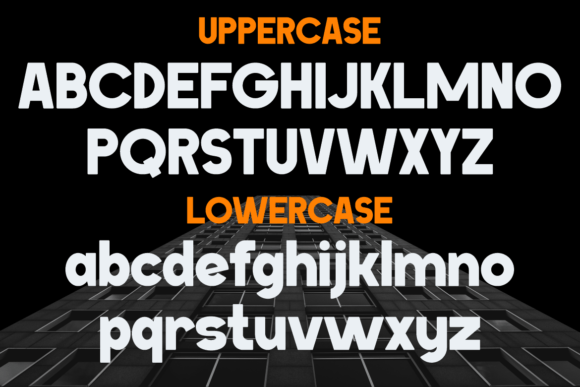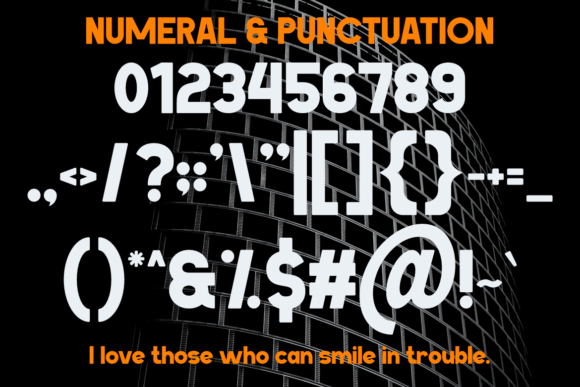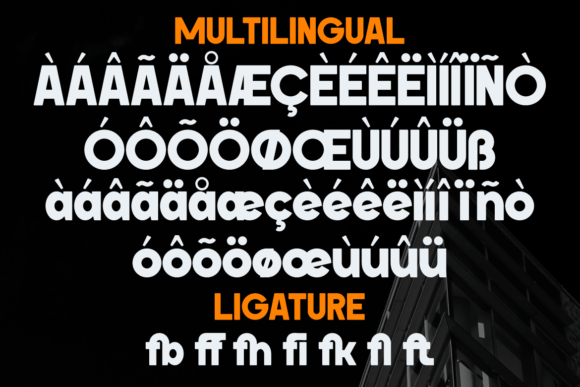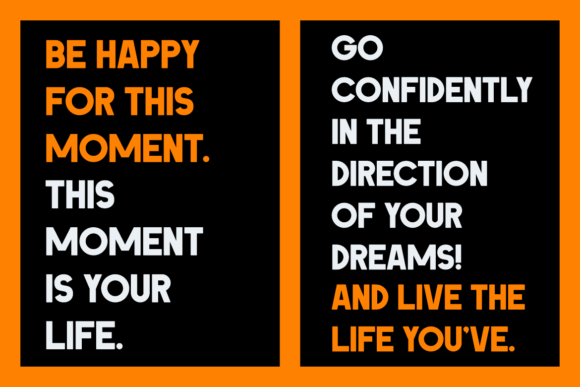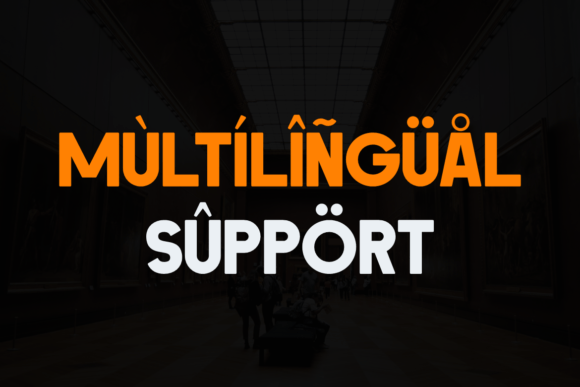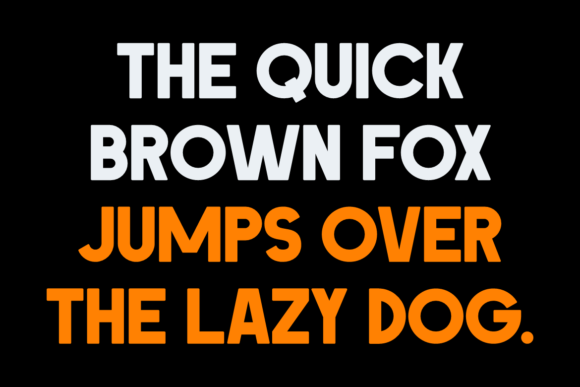
Introducing Equali Font: The Modern and Versatile Typeface for Bold Statements
In the world of graphic design, typography plays a crucial role in conveying messages, expressing creativity, and capturing attention. Among the numerous fonts available, Equali Font stands out as a modern and versatile typeface, perfect for making a strong statement in headlines, logos, and graphic designs. In this article, we’ll explore the features, benefits, and uses of Equali Font, and why it’s an excellent choice for designers and crafters.
What is Equali Font?
Equali Font is a contemporary sans-serif typeface designed to add a touch of modernity and professionalism to any project. Its clean lines, geometric shapes, and balanced proportions make it an ideal font for a wide range of applications, from digital media to print materials. Equali Font is perfect for designers who want to create a bold and lasting impression.
Key Features of Equali Font
- Modern and Minimalist Design: Equali Font boasts a sleek and minimalist design, making it perfect for modern designs and trends.
- Versatile and Adaptable: This font is highly versatile and can be used in various contexts, from headlines and logos to body text and captions.
- Strong and Bold: Equali Font is designed to make a statement, with strong and bold letterforms that grab attention.
- High Legibility: The font’s clear and balanced design ensures high legibility, even at small sizes.
Benefits of Using Equali Font
Equali Font offers several benefits to designers and crafters, including:
- Enhanced Visual Appeal: Equali Font adds a touch of modernity and sophistication to any design, making it more visually appealing.
- Increased Readability: The font’s clear design and balanced proportions ensure high readability, even in small sizes.
- Flexibility and Adaptability: Equali Font can be used in various contexts and applications, making it a valuable addition to any designer’s toolkit.
- Time-Saving: With Equali Font, designers can quickly create professional-looking designs without spending hours on typography.
Use Cases for Equali Font
Equali Font is suitable for a wide range of applications, including:
- Headlines and Titles: Use Equali Font to create bold and attention-grabbing headlines and titles.
- Logos and Branding: Equali Font is perfect for creating modern and professional logos and branding materials.
- Graphic Designs: Use Equali Font to add a touch of modernity and sophistication to your graphic designs, such as brochures, posters, and flyers.
- Digital Media: Equali Font is suitable for digital media, including websites, social media graphics, and mobile apps.
In conclusion, Equali Font is a modern and versatile typeface that adds a touch of modernity and professionalism to any project. Its clean design, strong and bold letterforms, and high legibility make it perfect for making a statement in headlines, logos, and graphic designs. With its flexibility, adaptability, and cross-platform compatibility, Equali Font is an excellent choice for designers and crafters looking to elevate their designs.